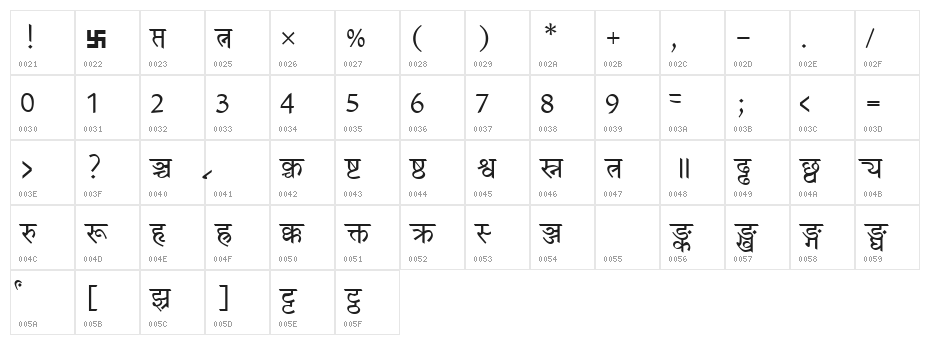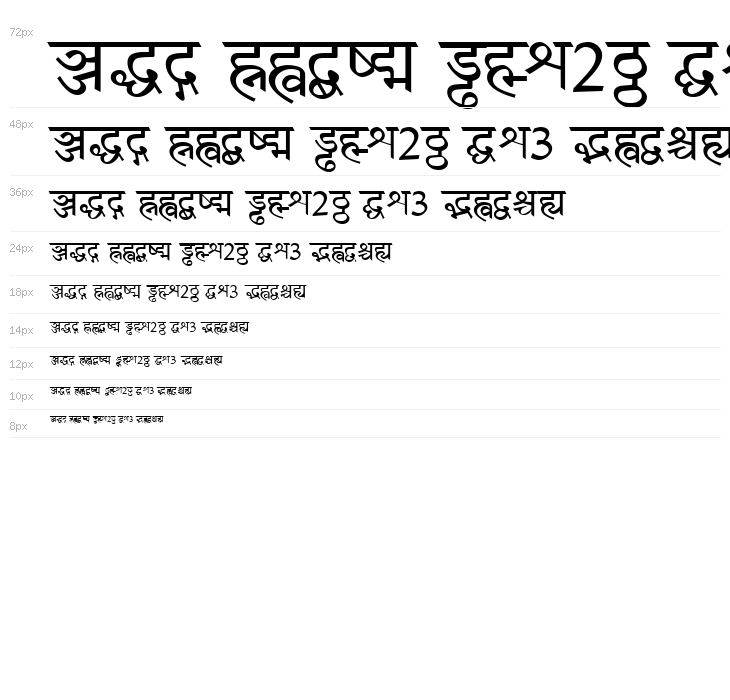
Patrika Font
Patrika Description
This font is a traditional Devanagari script with a modern twist. It features clean, sharp lines and a balanced structure, making it highly legible. The characters are well-proportioned, with a consistent stroke width that provides a harmonious appearance. The numerals are clear and distinct, complementing the script's overall style. Special characters are included, maintaining the font's cohesive look. This font is suitable for both digital and print media, offering versatility in various design contexts.
Use CaseBody text, Educational materials, Cultural publications
Proposed ProjectsIdeal for cultural publications, educational materials, and digital content that requires a traditional yet contemporary look.